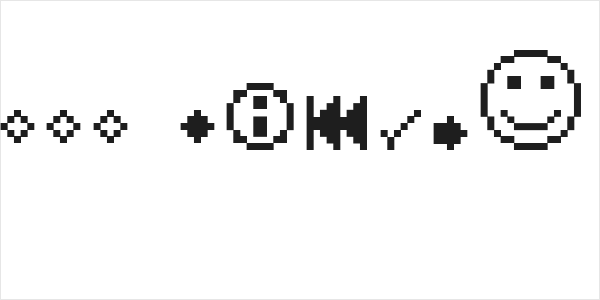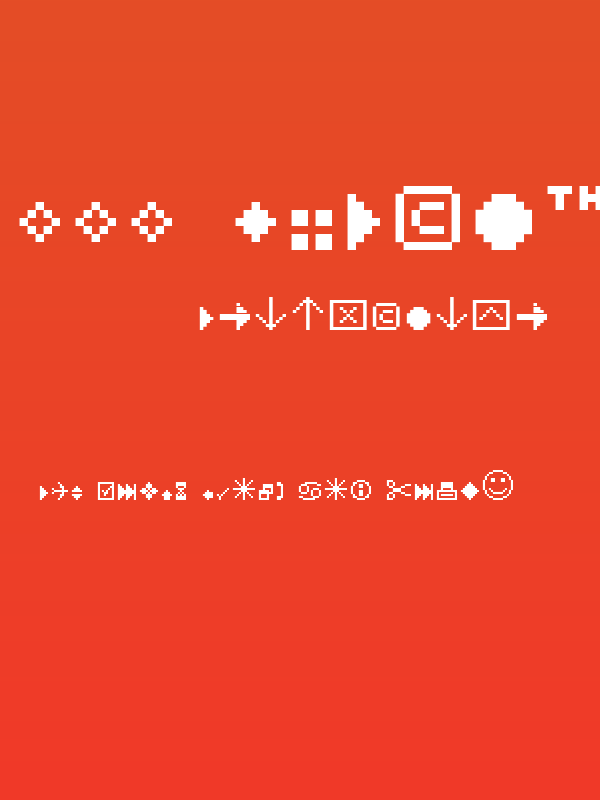
FFF Extras Font
| Overall Style | Retro, Decorative, Pixel Art |
| Use Case | Icons, UI elements, decorative graphics |
| Proposed Projects | User interface mockups, retro video games, pixel art projects, digital dashboards, playful infographics. |